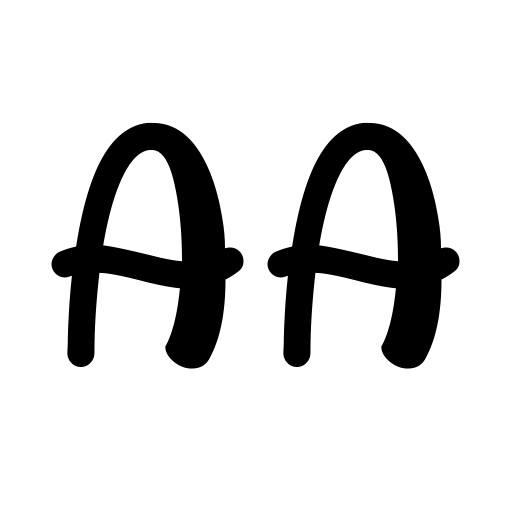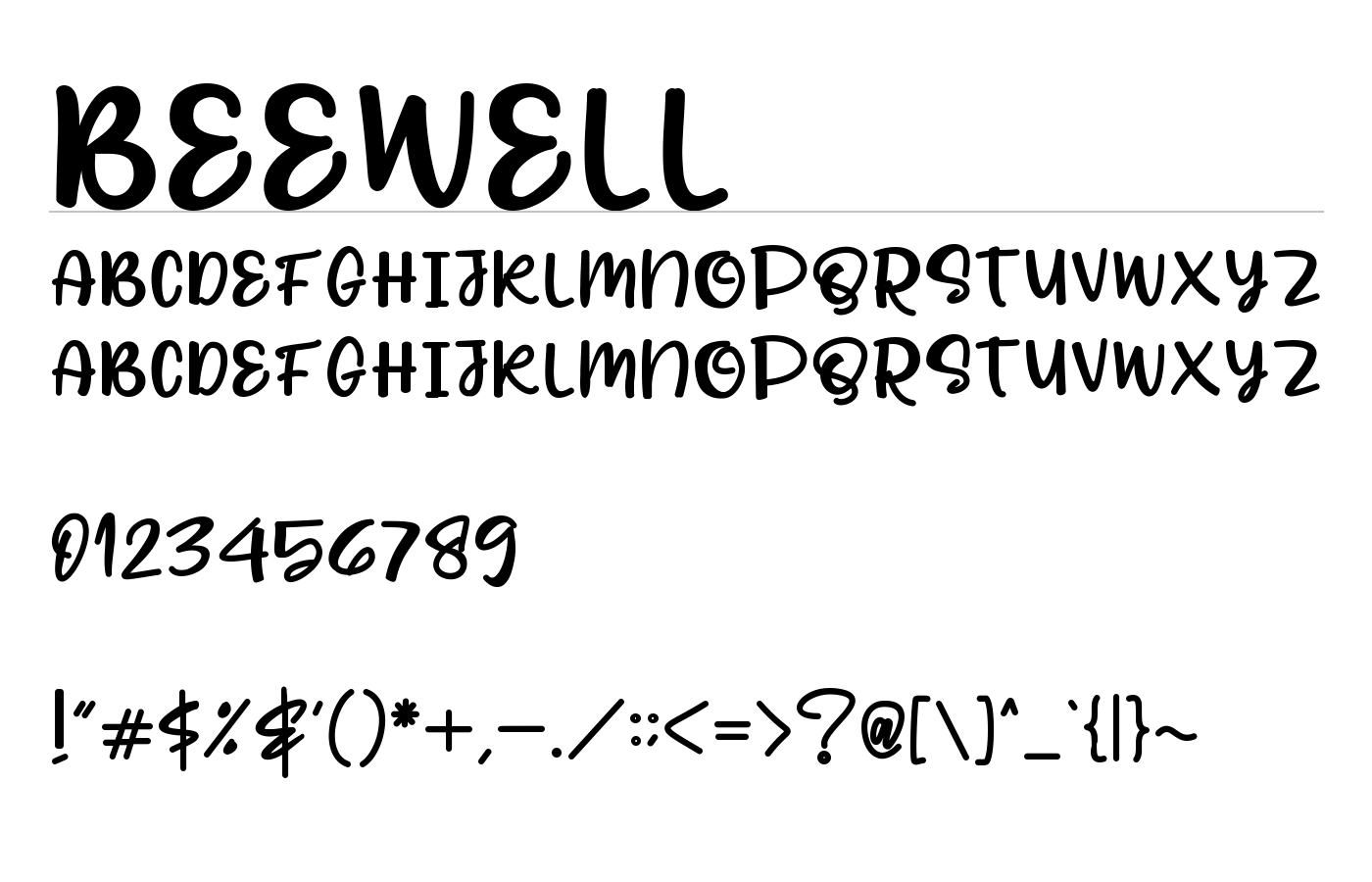
BEEWELL is a playful, handwritten sans-serif font with a lively and casual feel, featuring rounded, uneven strokes that give it a friendly and approachable personality. Its medium weight and slightly condensed letterforms make it ideal for informal uses like logos, kids’ products, posters, and social media graphics where a fun and energetic vibe is desired. This font’s clear legibility combined with quirky touches makes it perfect for adding a warm, personal touch to creative and youthful design projects.
BEEWELL Font
About BEEWELL Font